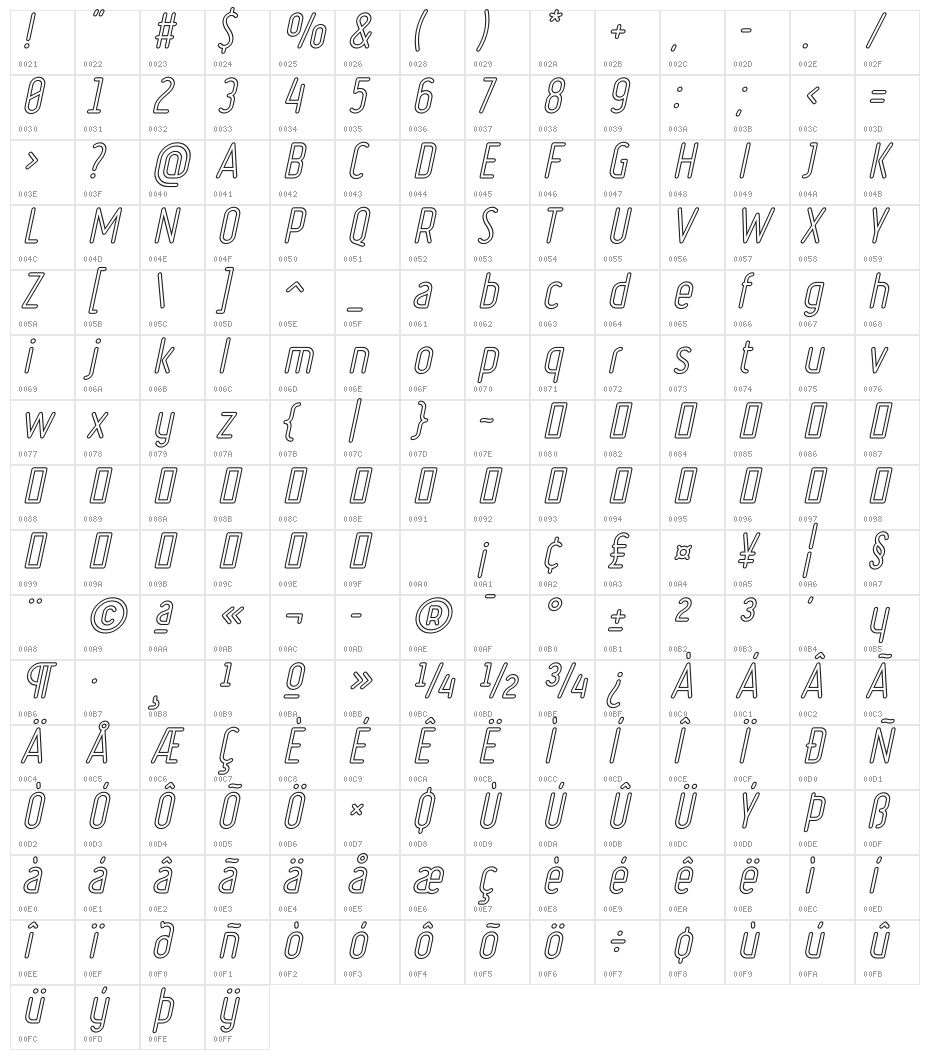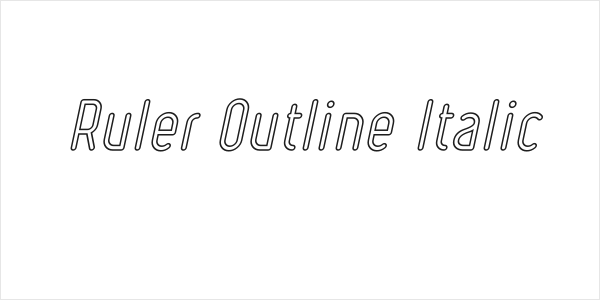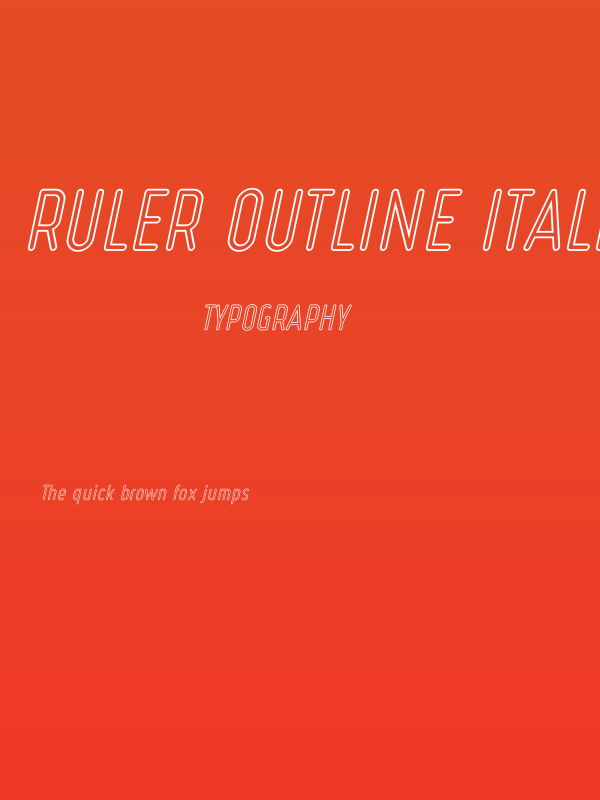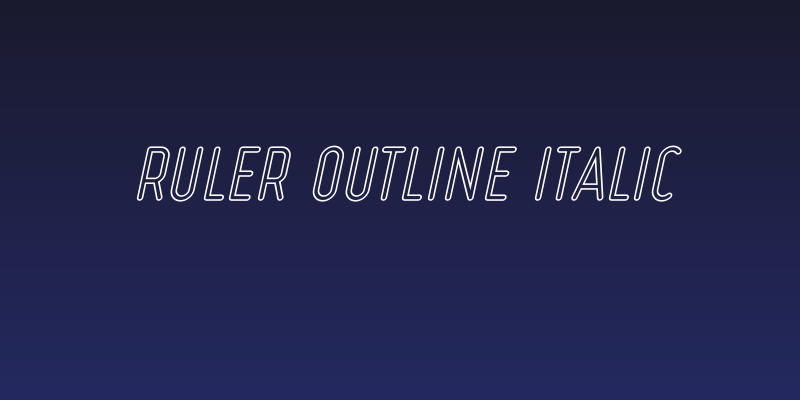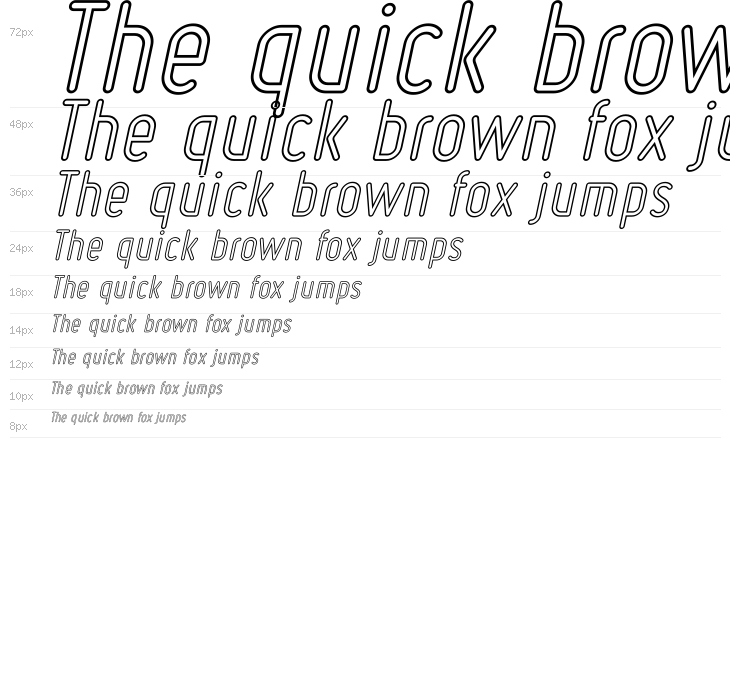
Ruler Outline Italic Font
Ruler Outline Italic Description
This font features a modern, outlined design with a distinct italic slant, giving it a dynamic and forward-moving appearance. The characters are uniformly outlined, providing a sense of openness and clarity. The uppercase and lowercase letters maintain a consistent style, with rounded edges and a sleek, streamlined form. The numerals and special characters follow the same outlined and italicized style, ensuring uniformity across all glyphs. This font's unique outline and italic combination make it stand out, offering a contemporary and stylish look suitable for various design applications.
Proposed ProjectsIdeal for branding, posters, headlines, and digital media where a modern and stylish look is desired.